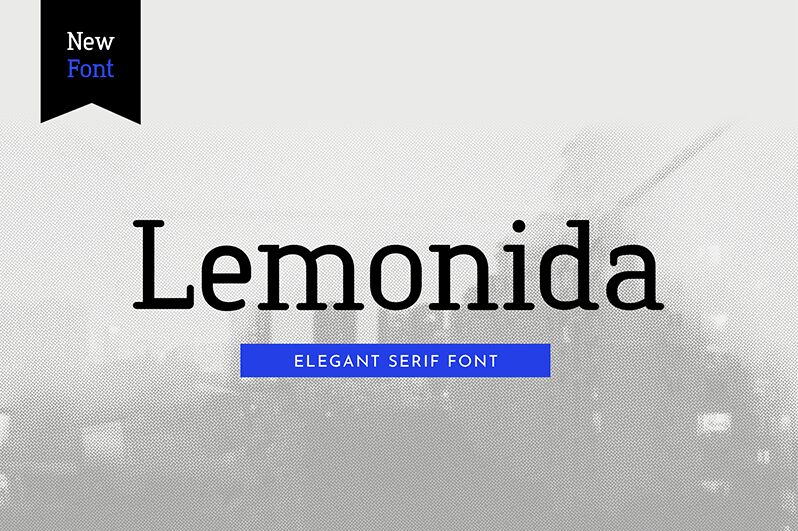
Lemonida Regular
Lemonida font by UI Creative is a classic serif typeface with inspiration from vintage signage and typography. This structured font imitates letters used in the past for commercial, at-home, or street store signs. The authoritative look of Lemonida is professional to use and it comes with a touch of elegance.
A free serif font to download and use in logotype designs, branding projects, poster layouts, signage titles, blog headings, book covers for novels or other genres requiring the same vibe (e.g. psychology books), web headings on websites that need an elegant touch (e.g. a jewelry website), typographic posters for exhibitions or galleries about history, civilization-related brochure covers for travel agencies or anyone else interested.